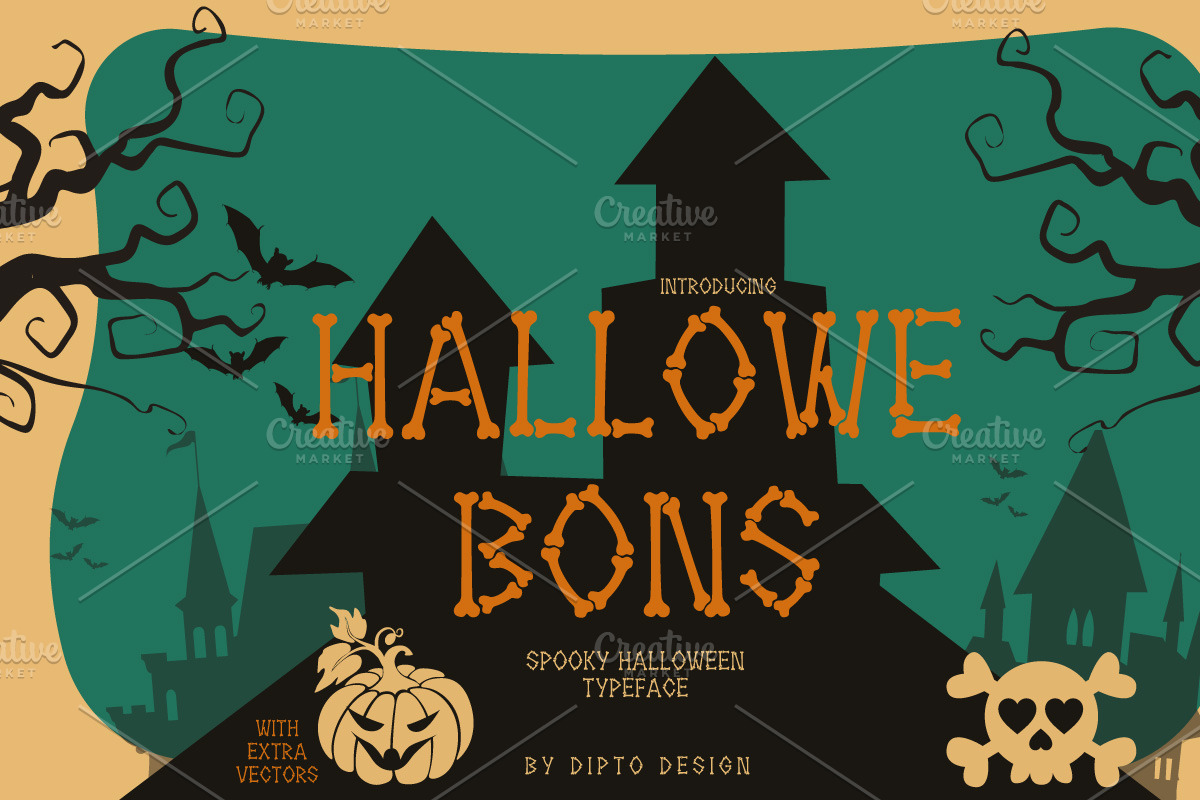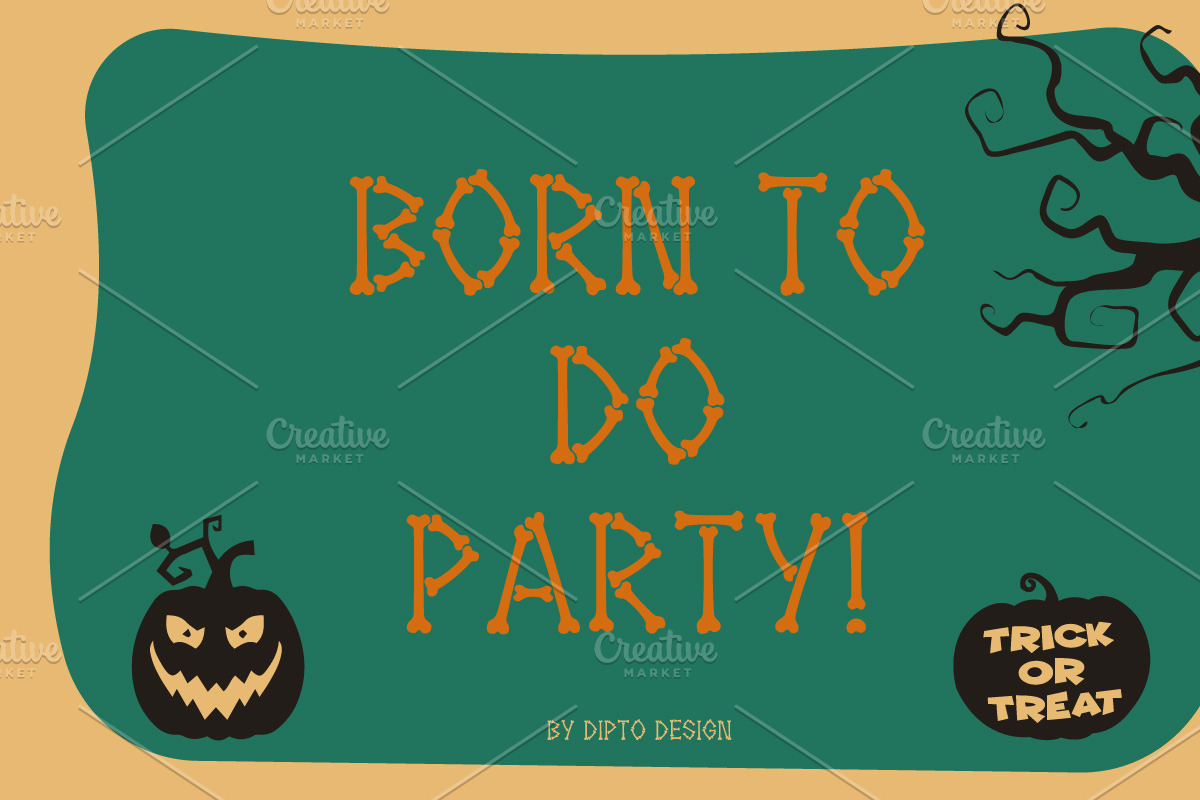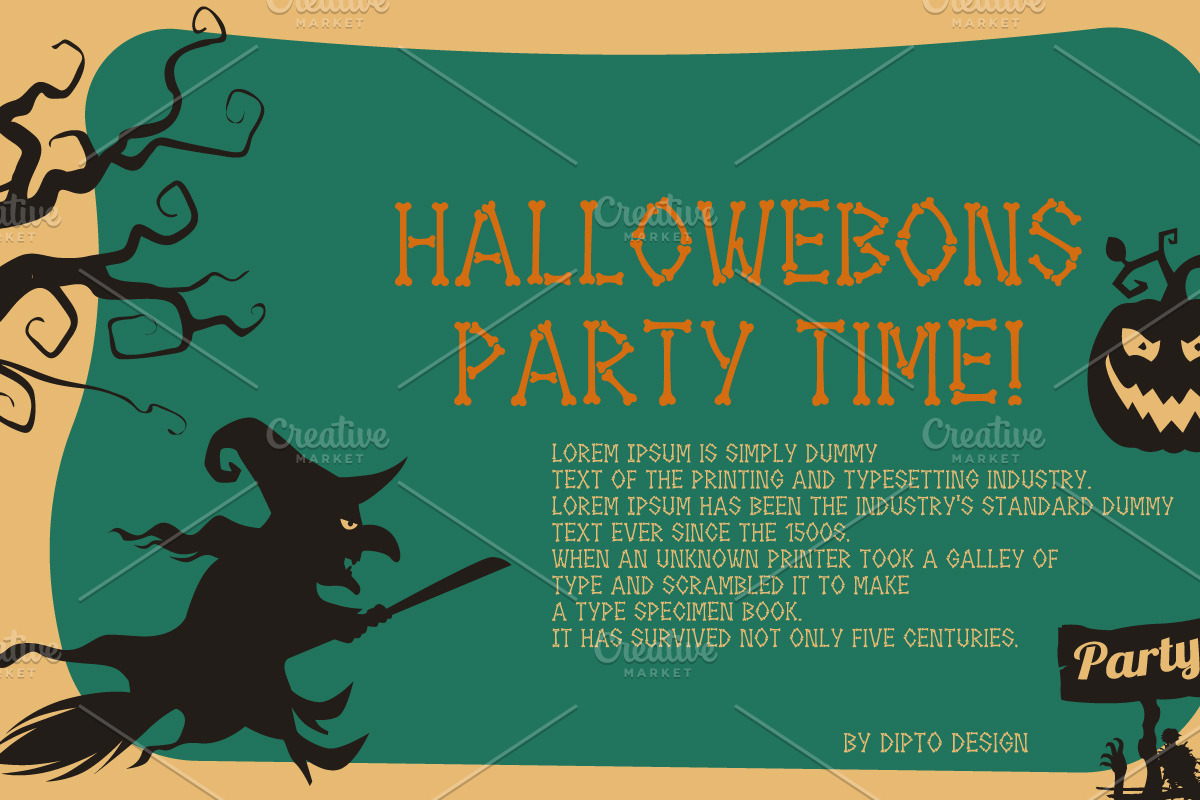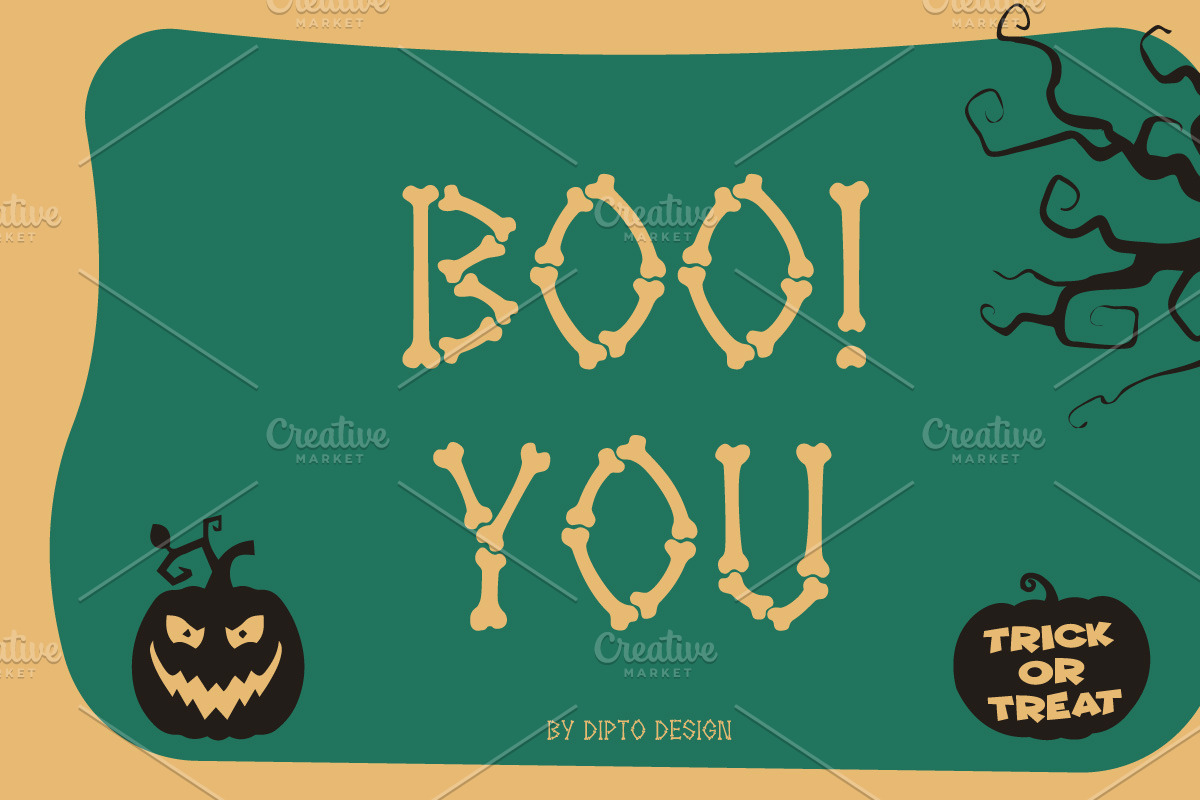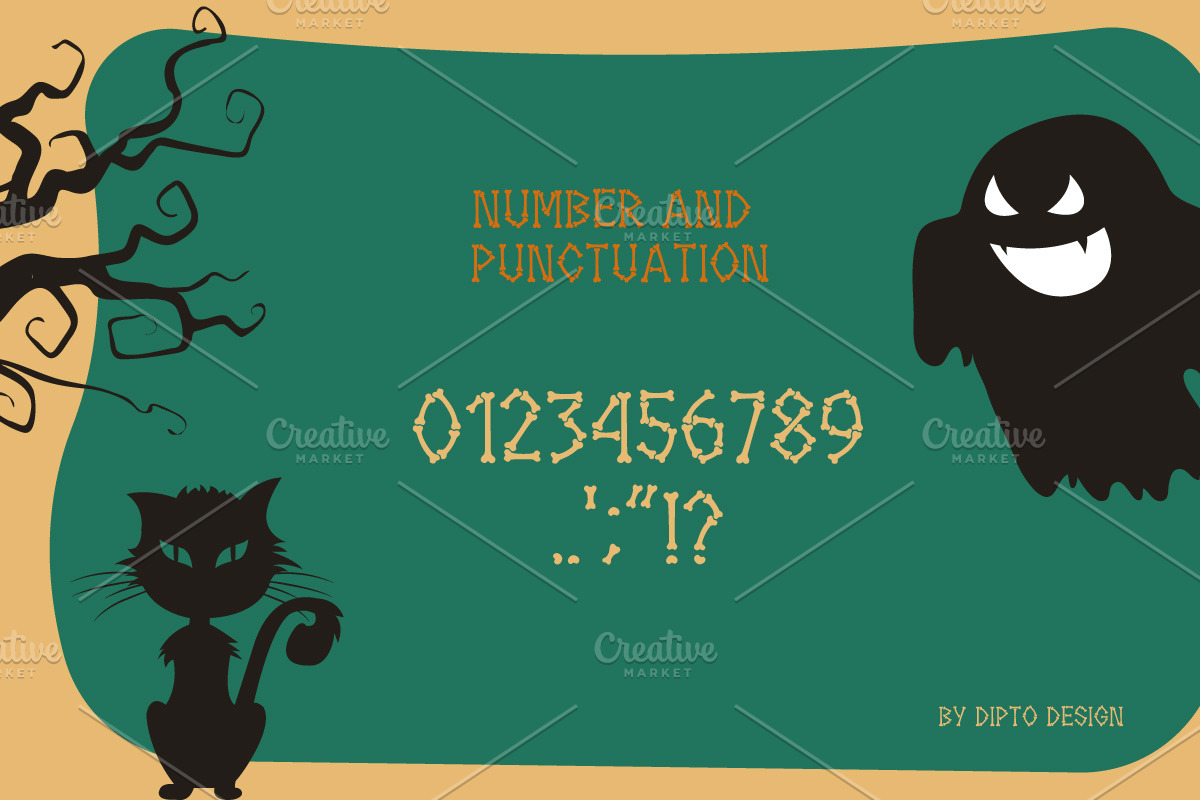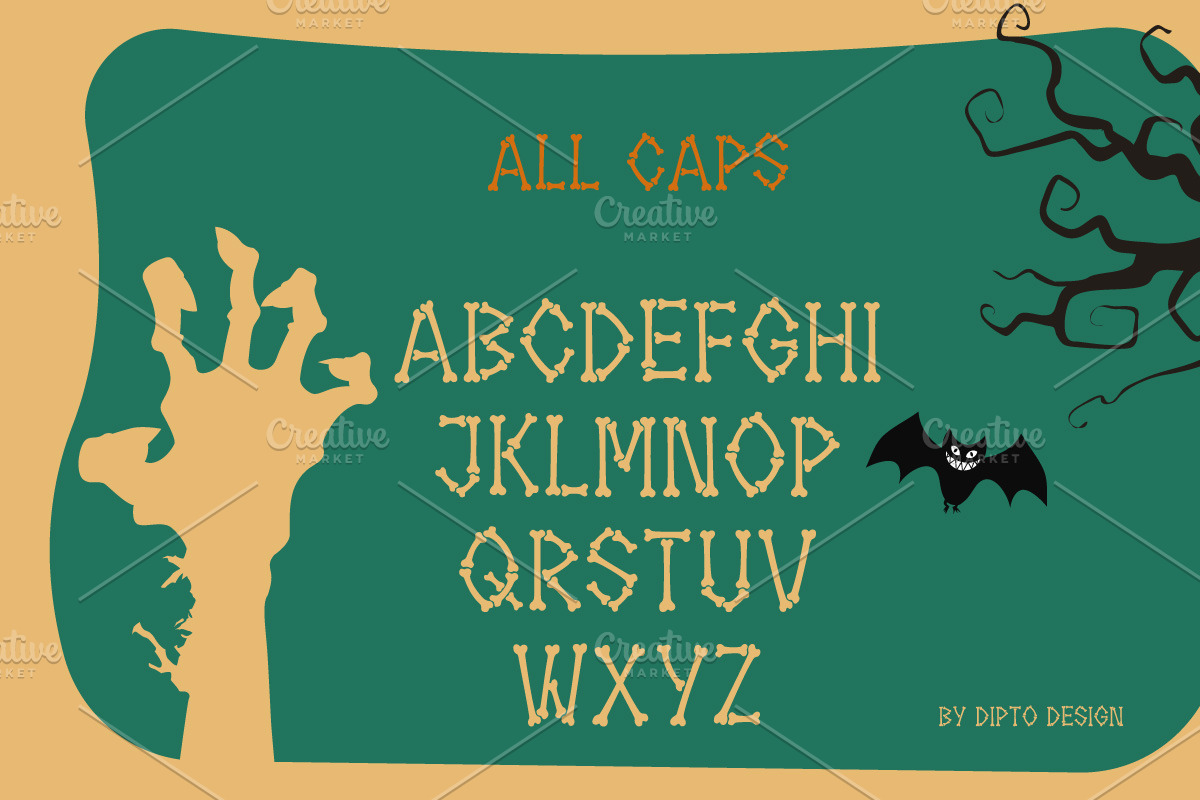
Hallowebons - Spooky typeface
Hallowebons is a creepy and spooky looking display font. It is perfectly suitable for any Halloween-related project or crafty idea! The only limit is your imagination.
Dive into the chilling world of "Hallowebons," a horror font that will haunt your designs. With jagged edges and twisted strokes, it invokes eerie tales and spine-tingling suspense. Ideal for Halloween projects and horror-themed designs, "Hallowebons" will send shivers down your readers' spines. Dare to embrace the terror and create haunting masterpieces with this font—let the nightmare unfold. Unleash fear in every stroke—order "Hallowebons" now and let the haunting begin.